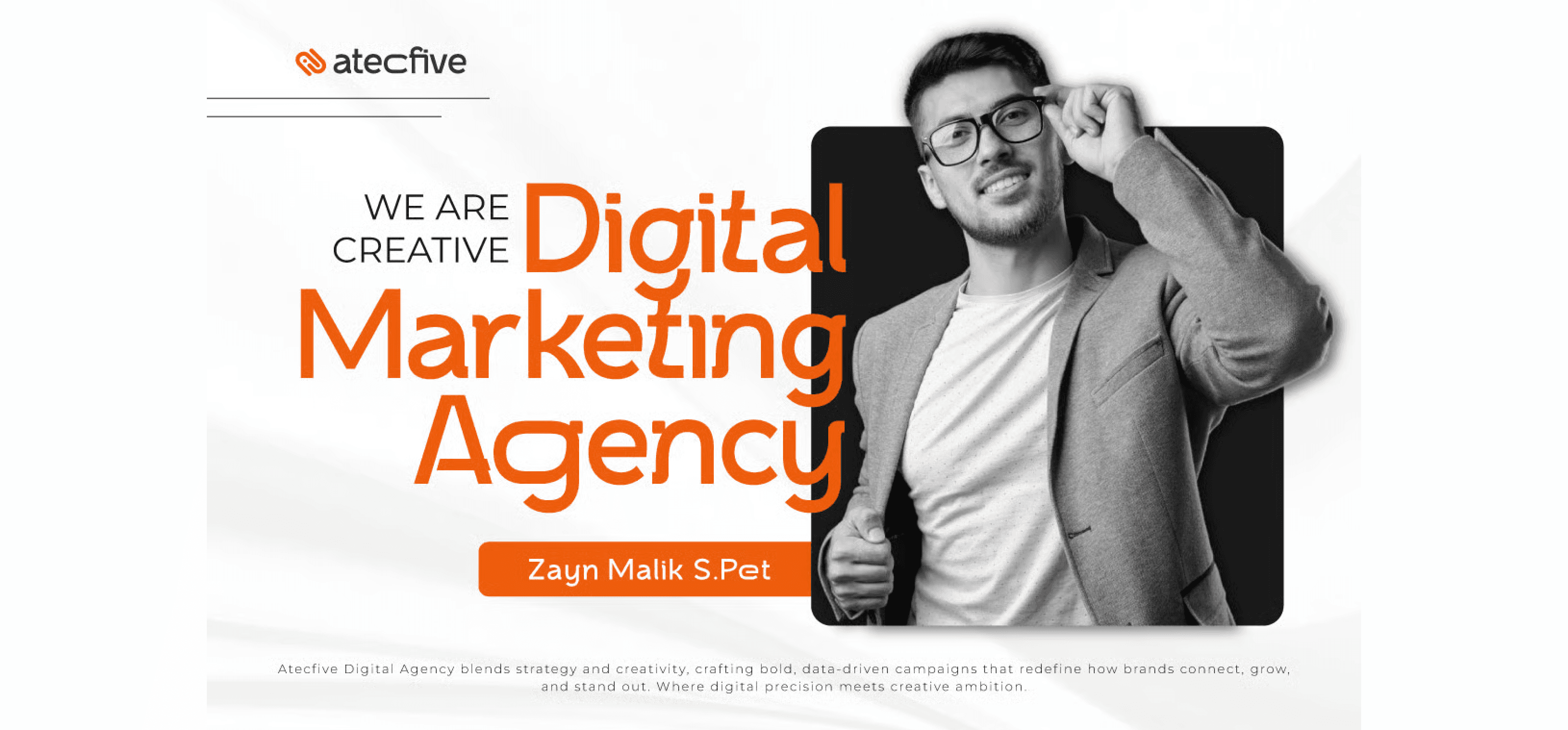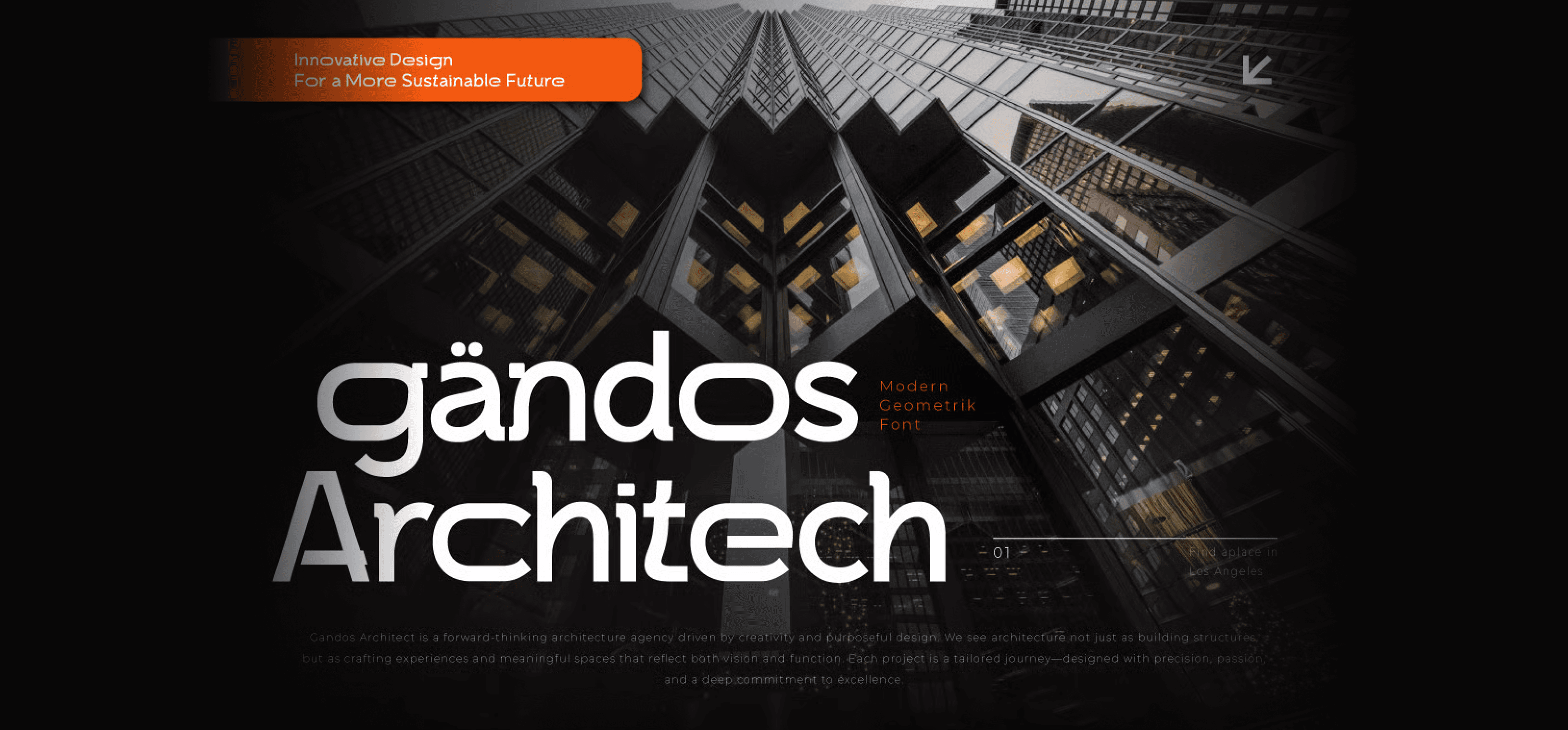
Qalget is a sleek and minimalist geometric logo font designed to deliver clarity, balance, and modern style in every letterform. Built with precision and symmetry, Qalget features clean lines and strong shapes—making it the ideal choice for branding, tech startups, product packaging, fashion labels, or modern editorial layouts.